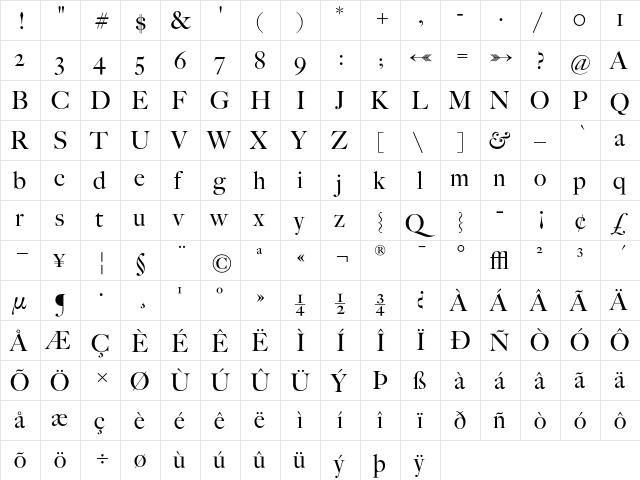
BigCaslon Regular
| Foundry | Carter & Cone Type Inc |
Design Context for BigCaslon Typeface
BigCaslon is a composed and adaptable typeface that performs quietly and consistently across a wide range of design contexts.
Pro Tip: Pair BigCaslon with a font of contrasting weight or personality to build a more expressive typographic hierarchy.